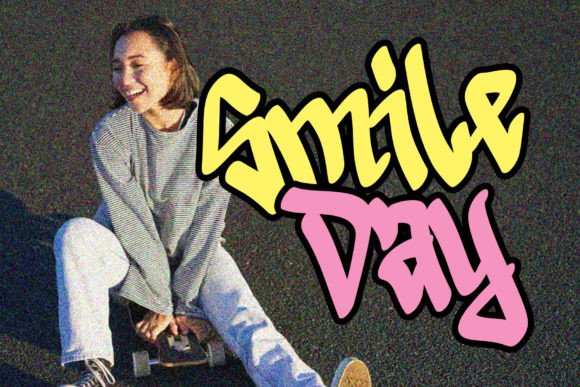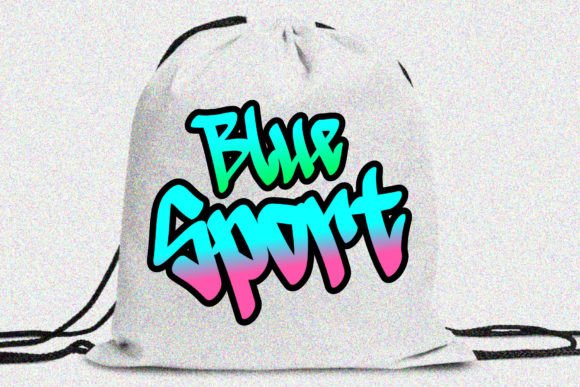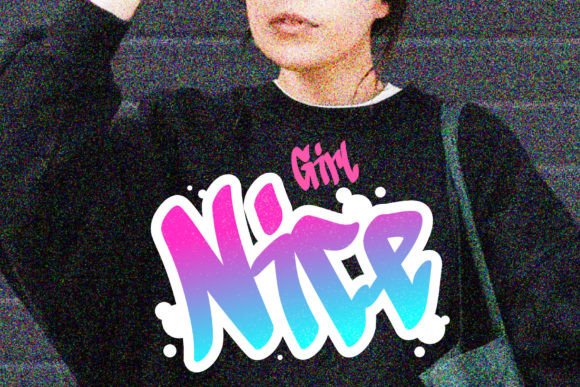
Introduction to Noise Font
Do you remember the thrill of stumbling upon a hidden street art alleyway on a late-night city stroll? The vibrant colors, bold typography, and raw energy of the graffiti that covers the walls can be a true design inspiration. For many creatives, this urban aesthetic is the perfect starting point for a new project. That’s where the Noise Font comes in – a high-quality design resource that captures the essence of street art in a single, stylish font.
With its packed graffiti style, the Noise Font is an excellent choice for designers looking to add an urban vibe to their creative project. Whether you’re working on a t-shirt design, a sportswear logo, or an advertisement, this font is sure to make your work stand out. And the best part? You can download it for free, making it an accessible design tool for designers of all levels.
Noise Font
- High-quality, unique texture design resource ideal for creative projects
- Perfect for adding a dynamic, distressed effect to designs, logos, and graphics
Honest Review: Noise Font
I recently stumbled upon the Noise Font, and I must say, it’s been a game-changer for my creative projects. As a designer, I’m always on the lookout for high-quality design resources that can elevate my work. The Noise Font definitely delivers.
- ✨ Unique Texture: The Noise Font features a stunning, organic texture that adds a touch of realism to any design. It’s perfect for backgrounds, overlays, or even as a standalone element.
Overall, I’m thoroughly impressed with the Noise Font. Its unique texture and transparent background make it a valuable addition to any designer’s toolkit. While it’s not perfect, the benefits far outweigh the limitations. If you’re looking for a high-quality design resource to enhance your creative project, I highly recommend giving the Noise Font a try.
Tips for Getting the Most Out of Noise Font
Use Noise Font to create a unique and eye-catching design for your next creative project. Experiment with different font sizes, colors, and styles to find the perfect combination for your needs. You can also use Noise Font as a background texture or overlay to add depth and visual interest to your design.
Noise Font is a versatile design resource that can be used in a variety of creative projects, including graphic design, digital art, and typography. It’s a great addition to any design library and can be used to create unique and eye-catching designs for presentations, documents, and websites.